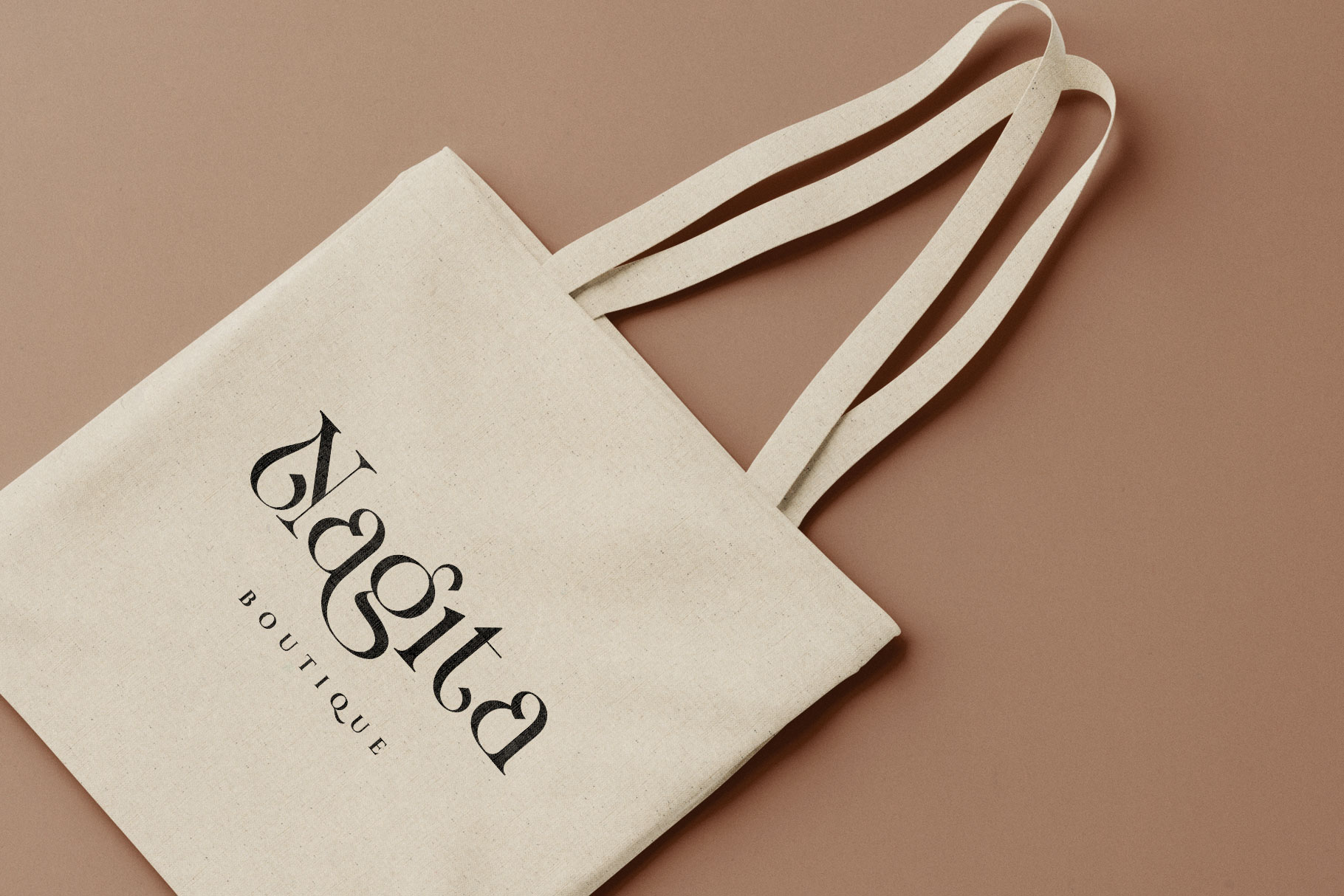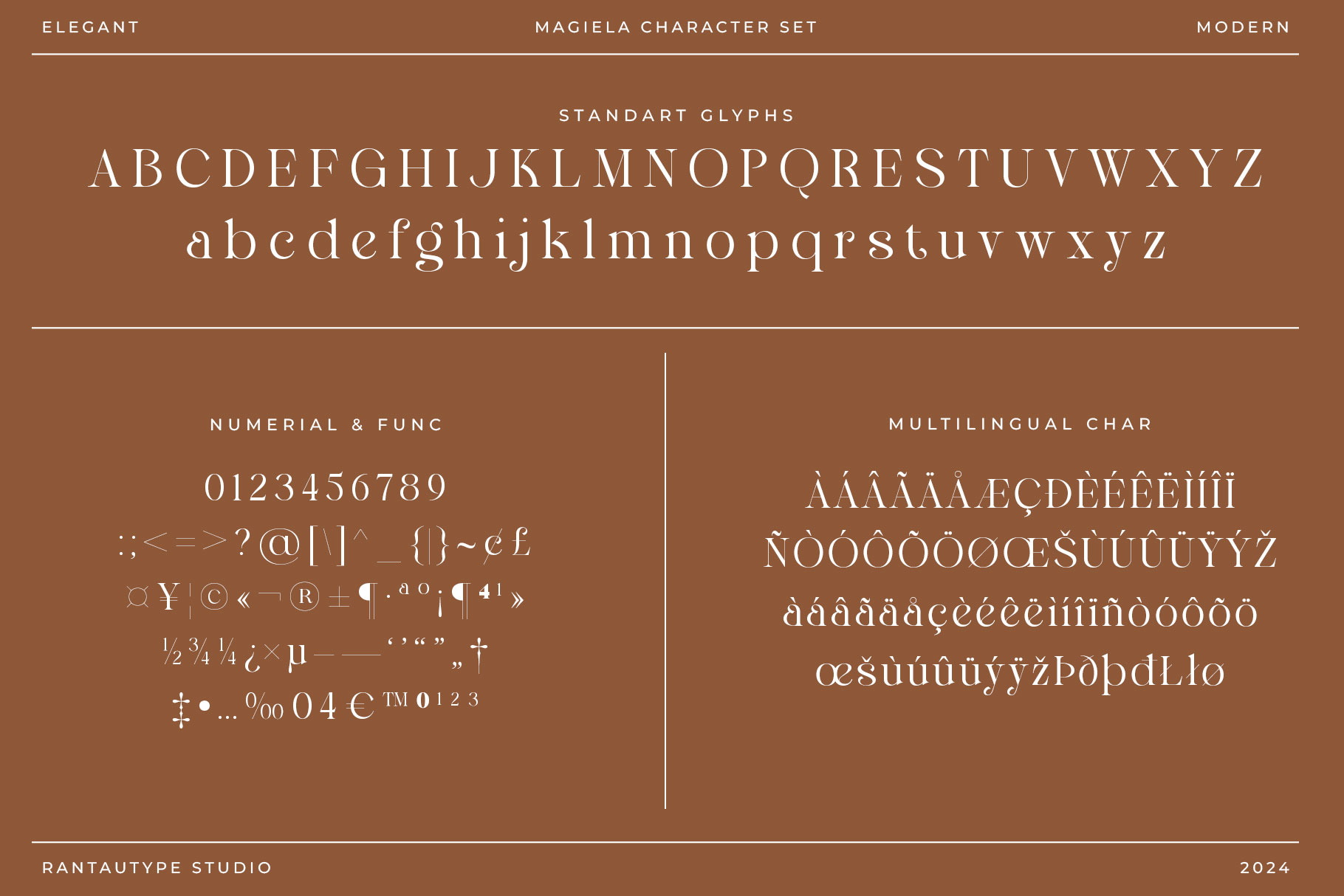
Magiela Elegant Serif Font
Magiela is elegant serif font come with blend of classic elegance and memoriable style. Magiela come with alternate and ligature, you can mix and max to make your design project stand out.
Magiela is a beautiful choice for any creative endeavor, creating elegant, modern, chic, lifestyle design such as logotype, title, cover, branding, invitations, wedding designs, display and magazine, social media posts, advertisements, printed quotes, product packaging, corporate brand, product designs, labels, photography, watermarks, special events and any other project with elegant touch.